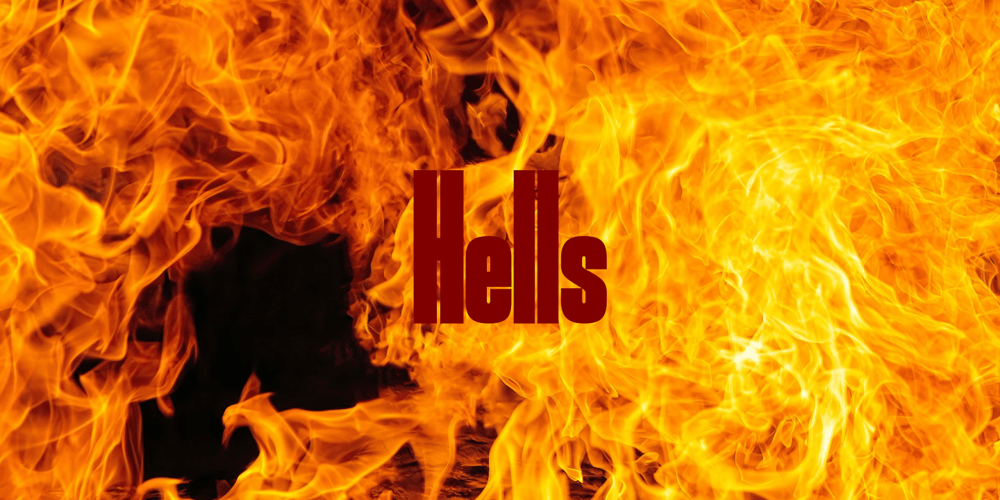
Hells Font Family was designed by Arief Rochman and published by 4RM Font. Hells contains 2 styles and family package options. Hells font is made with ultra condensed width and has a strong aesthetic value when used in the right design. Having a regular style and a compressed width adds to the aesthetic of this font. It is suitable for use in graphic designs for posters, flyers, or large designs.